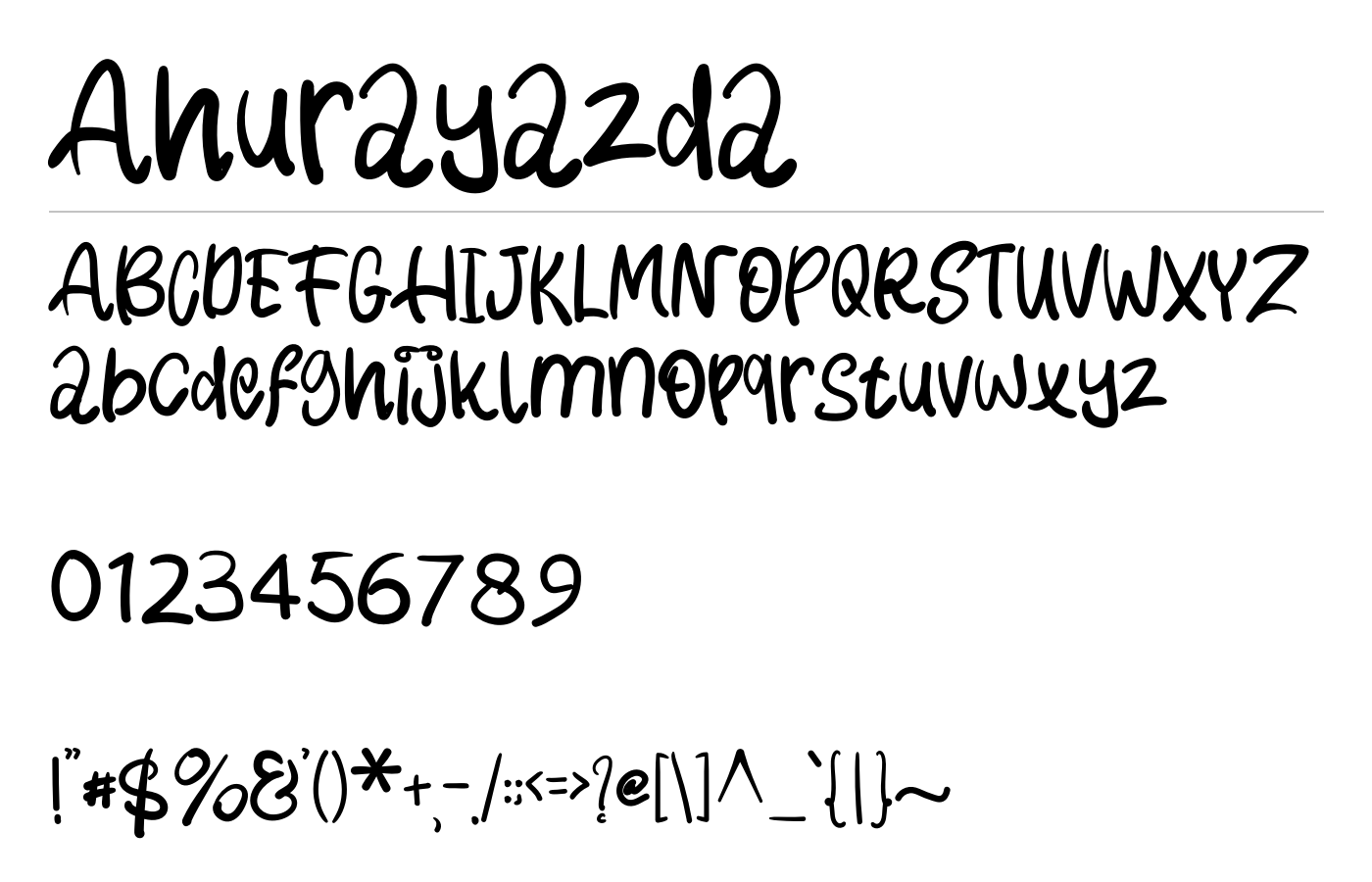
Ahurayazda is a playful, hand-drawn script font with a casual and friendly vibe. Its medium weight and slightly irregular, organic strokes give it a warm, approachable feel, making it perfect for creative projects, informal branding, and personal invitations where a relaxed and unique touch is desired. The font’s clear letterforms and distinctive character shapes also make it suitable for headlines and expressive designs that want to stand out with personality.
Ahurayazda Font
About Ahurayazda Font